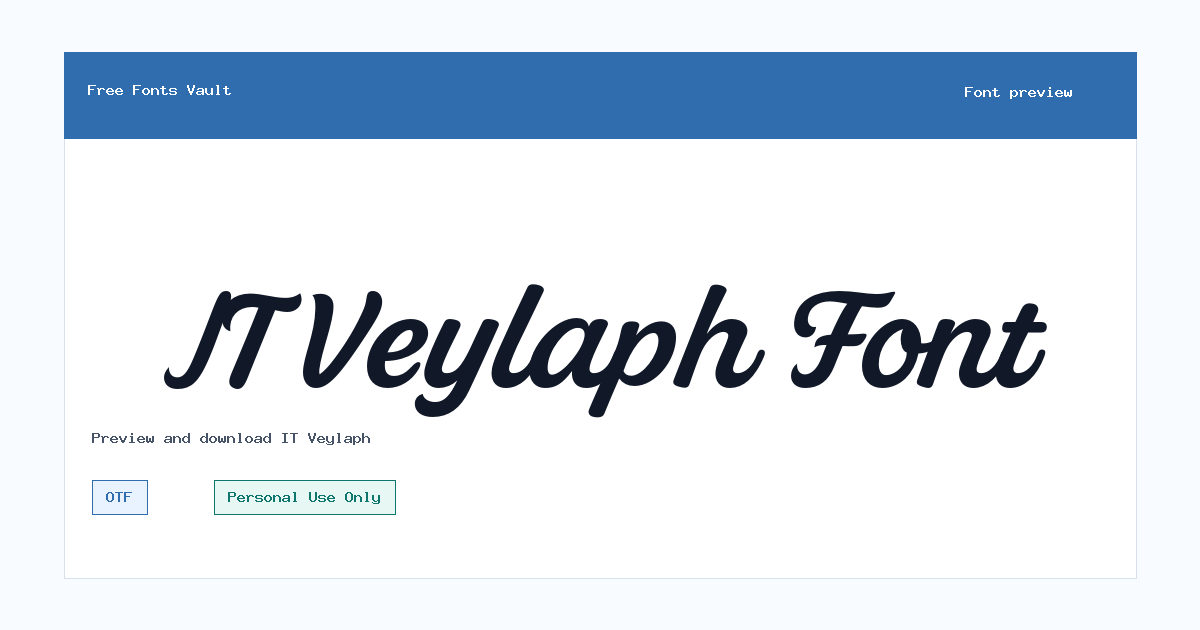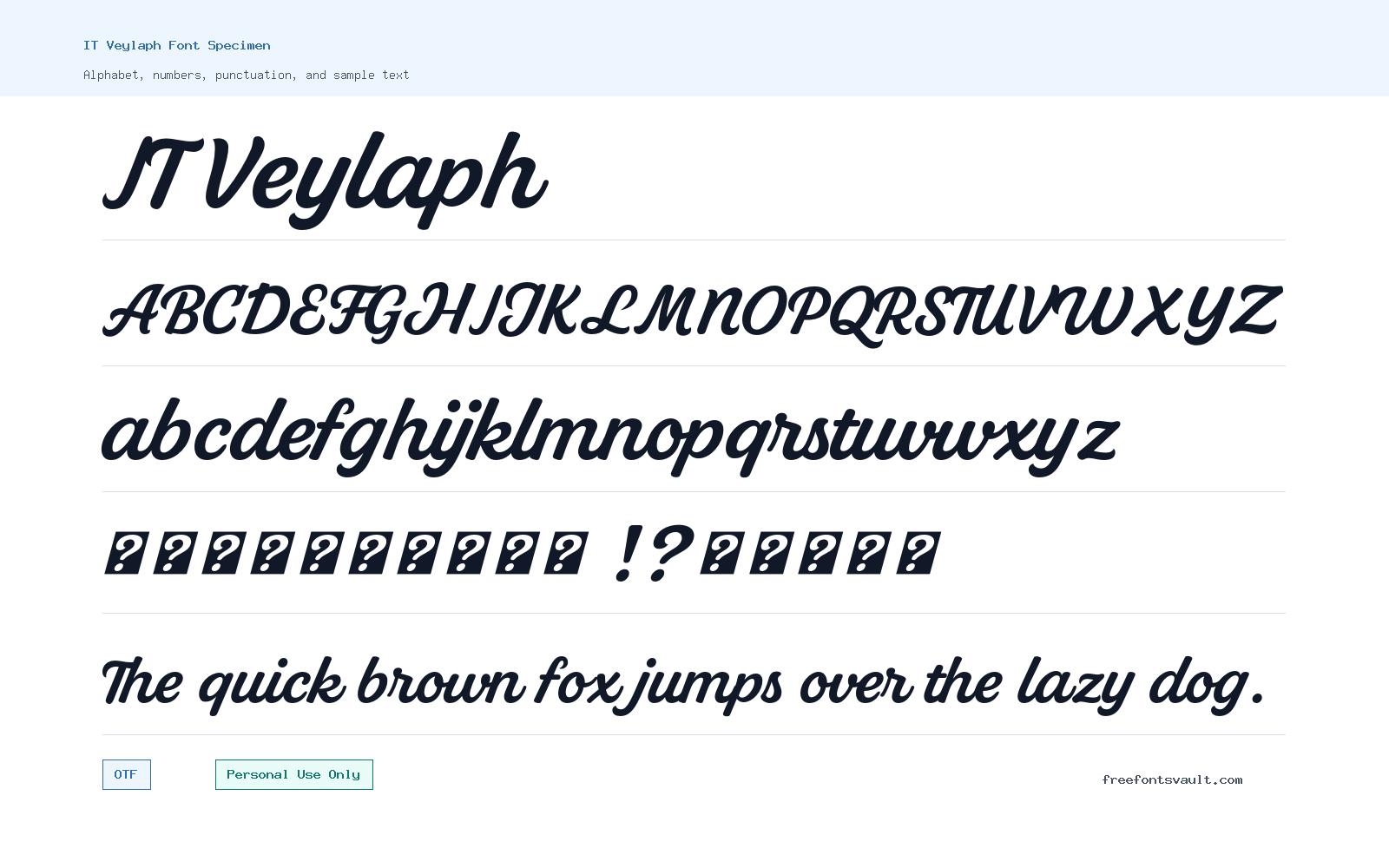
IT Veylaph
- Designer Indotype
- Foundry Indotype Foundry
IT Veylaph is a retro script font from Indotype, offered as a regular OTF font file for personal projects. Its script style makes it better suited to short, expressive text than long reading settings.
About IT Veylaph
IT Veylaph has the feel of a retro script display font: decorative, flowing, and meant to give words a styled look rather than disappear into the background. Use it when the lettering itself is part of the design, such as a headline, name, label, quote, invitation title, social graphic, or packaging mockup. Because it is a script face, it will usually work best at medium to large sizes where the letter shapes have room to show clearly.
- Retro script display style suited to short, decorative text
- Logos, badges, invitations, quote graphics, and title lettering for personal projects
- Posters, labels, social media images, and mockups where a script accent is needed
The designer is listed as Indotype, with Indotype Foundry also named for the font.
What kind of projects suit IT Veylaph?
It suits short display text such as names, titles, quote designs, labels, posters, and invitation headings, especially when you want a retro script look.
Is IT Veylaph good for paragraphs?
It is not the best choice for paragraphs or small text. Use it for a few words, then pair it with a cleaner font for longer reading.
Who designed IT Veylaph?
The font is credited to Indotype, and the foundry is listed as Indotype Foundry.